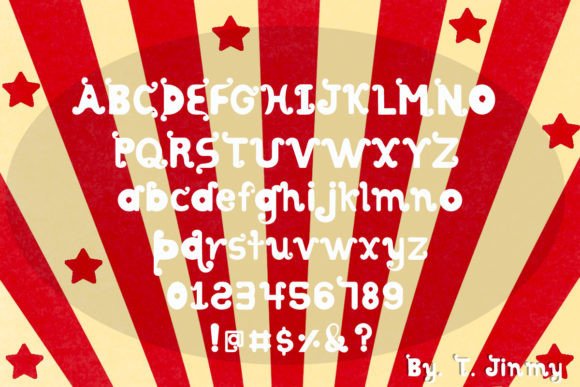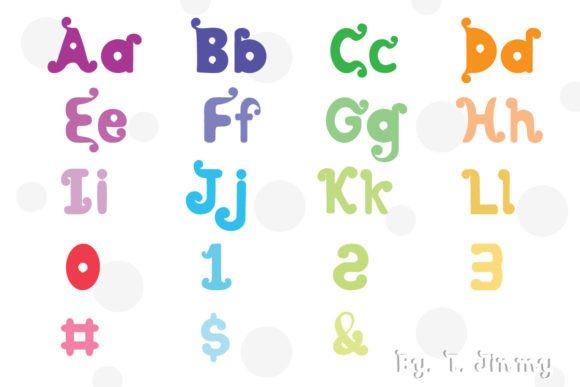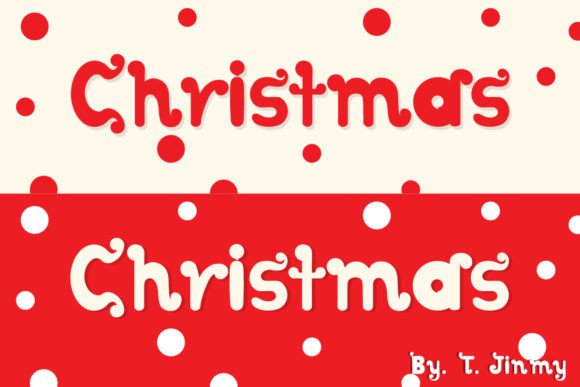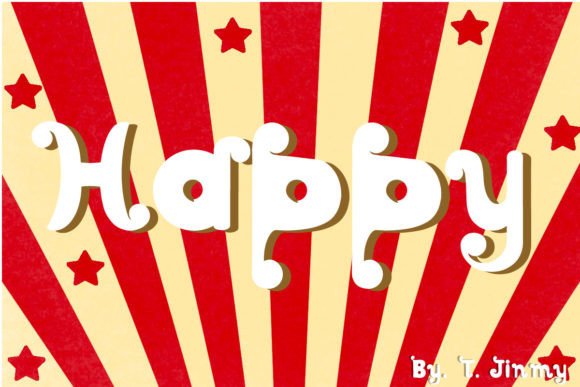
Circus Font: A Playful and Creative Typeface for Designers and Crafters
Are you looking for a font that can add a touch of excitement and playfulness to your designs? Look no further than the Circus font! This lovely creative font is perfect for a wide range of projects, from logos and branding to social media graphics and crafty DIY projects. In this article, we’ll take a closer look at the Circus font, its features, and how you can use it to take your designs to the next level.
What is Circus Font?
Circus is a unique and creative font that is inspired by the classic circus posters of the past. It features bold, colorful letters with a playful and whimsical feel. The font is designed to be highly versatile, making it suitable for a wide range of projects, from fun and playful designs to more sophisticated and elegant ones.
Key Features of Circus Font
So, what makes the Circus font so special? Here are some of its key features:
- Playful and whimsical design: The Circus font features bold, colorful letters with a playful and whimsical feel that’s perfect for designs that need a touch of fun and excitement.
- Highly versatile: The font is designed to be highly versatile, making it suitable for a wide range of projects, from logos and branding to social media graphics and crafty DIY projects.
- Easy to read: Despite its playful design, the Circus font is easy to read, making it perfect for designs that need to communicate a message clearly and effectively.
- Customizable: The font comes in a range of styles and weights, making it easy to customize to suit your design needs.
How to Use Circus Font in Your Designs
So, how can you use the Circus font in your designs? Here are some ideas to get you started:
- Logos and branding: The Circus font is perfect for logos and branding projects that need a touch of fun and excitement. Use it to create a bold and eye-catching logo that will help your brand stand out.
- Social media graphics: The font is also great for social media graphics, such as Facebook posts, Instagram stories, and Twitter headers. Use it to add a touch of personality to your social media presence.
- Crafty DIY projects: If you’re a crafter or DIY enthusiast, the Circus font is perfect for a wide range of projects, from handmade cards and invitations to craft tutorials and blog posts.
- Advertising and marketing materials: The font is also great for advertising and marketing materials, such as flyers, brochures, and posters. Use it to create eye-catching and effective marketing materials that will grab attention.
Tips for Using Circus Font Effectively
Here are some tips for using the Circus font effectively in your designs:
- Use it sparingly: While the Circus font is playful and fun, it can be overwhelming if used too much. Use it sparingly to add a touch of excitement to your designs.
- Pair it with other fonts: The Circus font pairs well with other fonts, such as sans-serif fonts and script fonts. Experiment with different font combinations to find the perfect look for your design.
- Experiment with colors: The Circus font comes in a range of colors, so don’t be afraid to experiment and find the perfect color scheme for your design.
In conclusion, the Circus font is a playful and creative typeface that’s perfect for designers and crafters who want to add a touch of fun and excitement to their designs. With its highly versatile design, ease of use, and customizable features, it’s an ideal choice for a wide range of projects. Whether you’re creating logos and branding, social media graphics, or crafty DIY projects, the Circus font is sure to be a hit. So why not give it a try and see what amazing designs you can create?